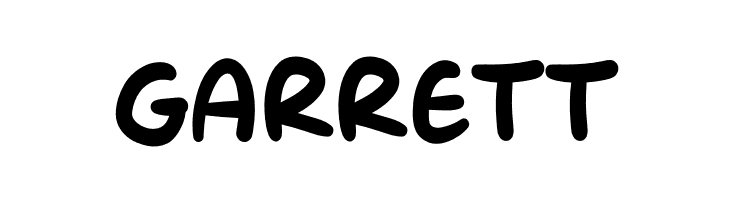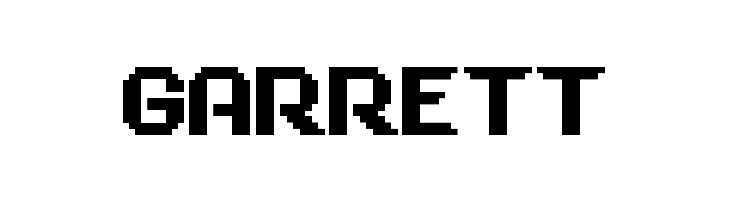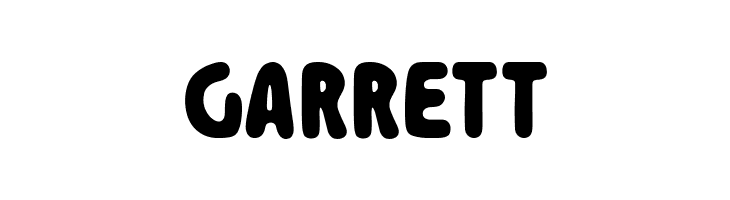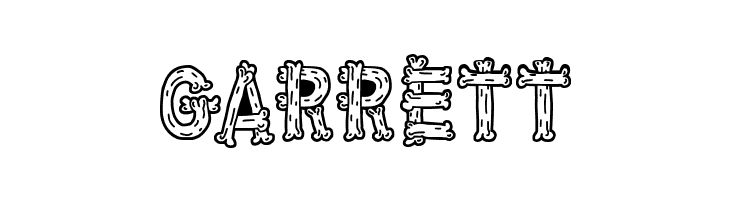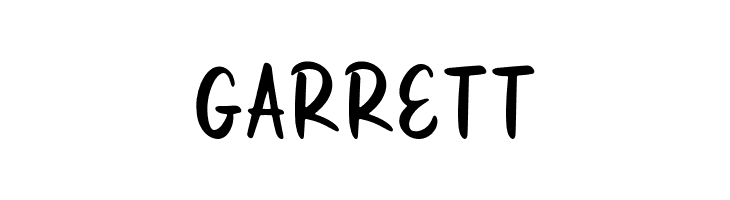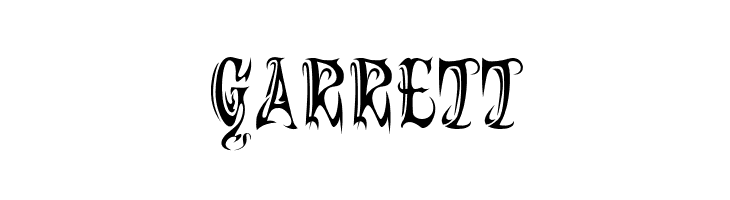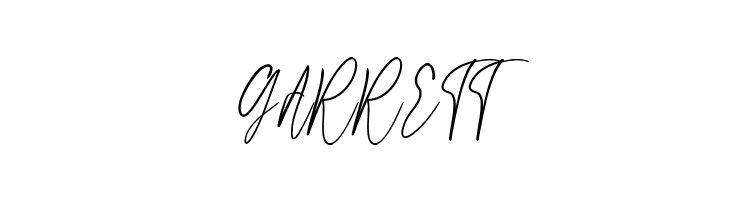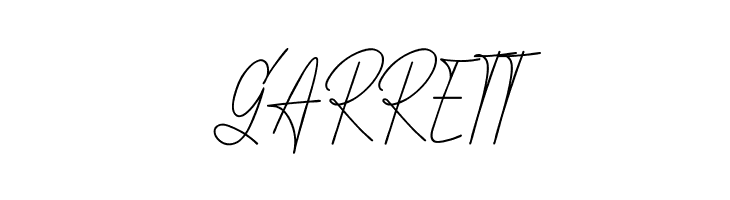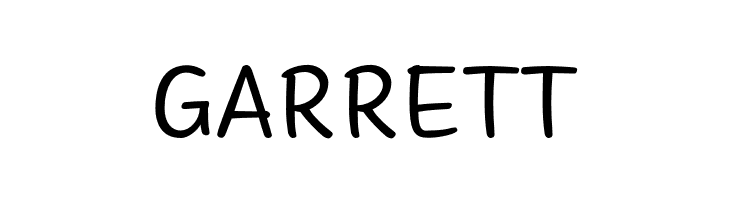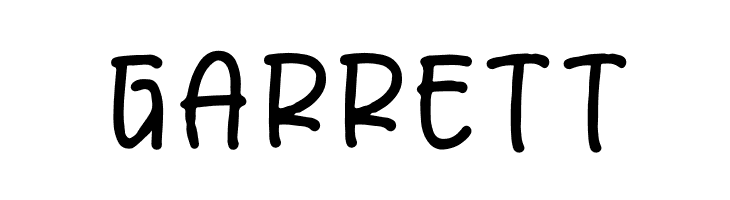
A playful, rounded font with a hand-drawn appearance, ideal for informal projects.
A bold, blocky font with a retro, pixelated style.
A bold, distressed, three-dimensional font with a vintage, rugged appearance.
A playful, bold font with rounded, thick strokes and a friendly appearance.
A spooky, bone-themed decorative font perfect for Halloween designs.
A playful, casual handwritten font with smooth, rounded edges.
An ornate and decorative font with intricate flourishes and a calligraphic style.
A bold, distressed font with a vintage, rugged appearance.
A playful, bold handwritten font with an informal and friendly style.
A sophisticated and fluid script font with a handwritten appearance.
A delicate, handwritten script font with fluid, connected strokes.
A playful, handwritten font with rounded, smooth letterforms.
A playful, handwritten-style font with rounded, consistent strokes.
A playful, handwritten font with smooth strokes and a casual vibe.
Elegant cursive font with a fluid, handwritten style.
A playful, handwritten font with smooth curves and a casual style.
A playful, casual handwritten font with bold strokes and smooth curves.
A playful, handwritten font with tall, narrow letters and a whimsical style.
A playful, rounded font with bold strokes and a casual style.
A casual, playful handwritten font with smooth curves and a friendly style.
A sophisticated, elegant script font with fluid, cursive handwriting style.
A sleek, modern font with a geometric and minimalist design.
A modern, geometric font with clean lines and uniform character width.
A sleek, ultra-thin font with a modern, minimalist design and geometric structure.
A bold, modern typeface with geometric structure and consistent stroke widths.
A bold, geometric sans-serif font with a modern and clean design.
A bold, distressed font with a vintage, handcrafted appearance.
A playful, rounded font with bold, smooth curves and a friendly appearance.
A playful, handwritten font with rounded, smooth letterforms and a casual style.
A playful, handwritten font with smooth, rounded strokes and a casual style.
Bold, flowing script with a handwritten style.
Modern sans-serif font with clean lines.
Playful handwritten font with rounded edges.
Playful handwritten-style font.
Playful handwritten font with rounded edges.